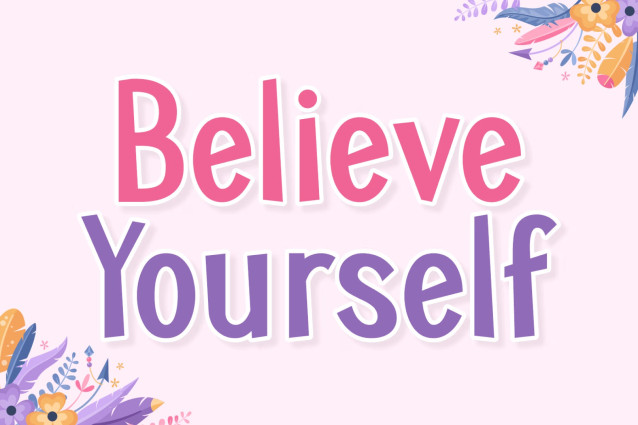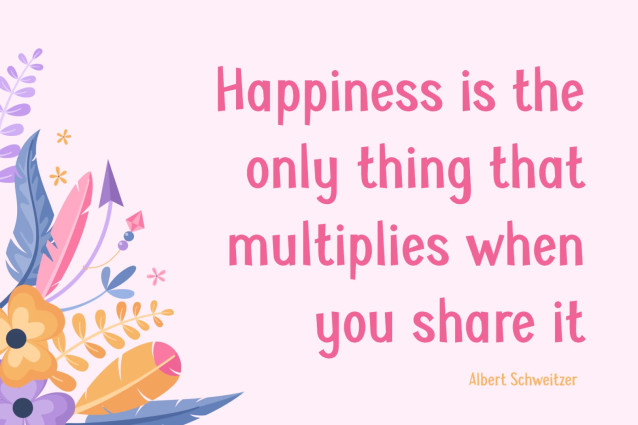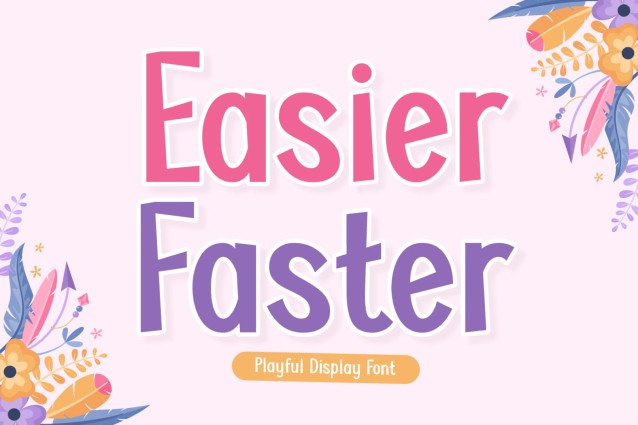
Easier Faster Font
Easier Faster Font – This dazzling display font effortlessly dovetails the sweet charm of cute, feminine scripts with the bold charisma of fashion and headline typography. Its hand-drawn aesthetic lends an authentic touch, perfect for creating eye-catching social media content, sneak peeks on photography platforms, or alluring sublimation projects.